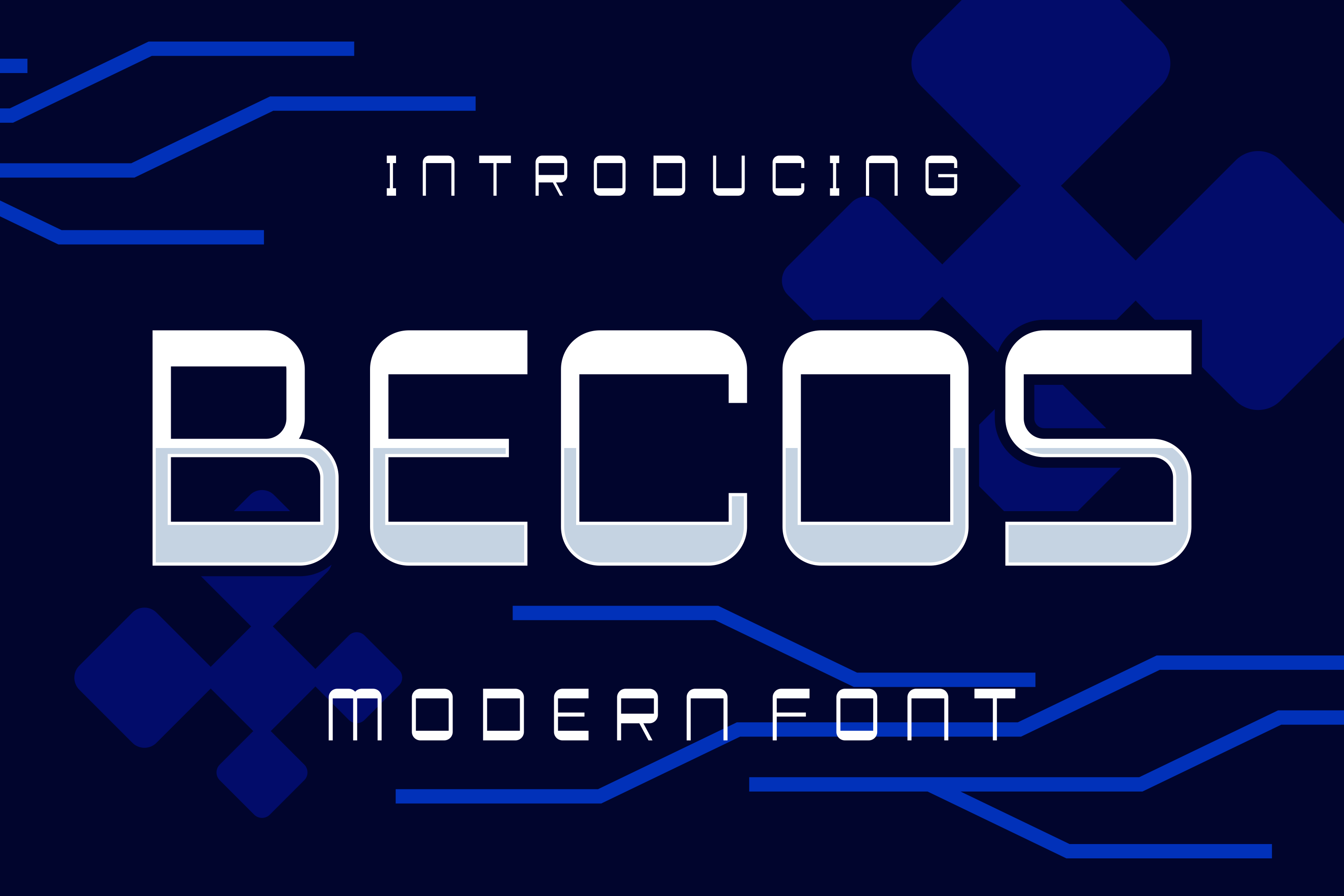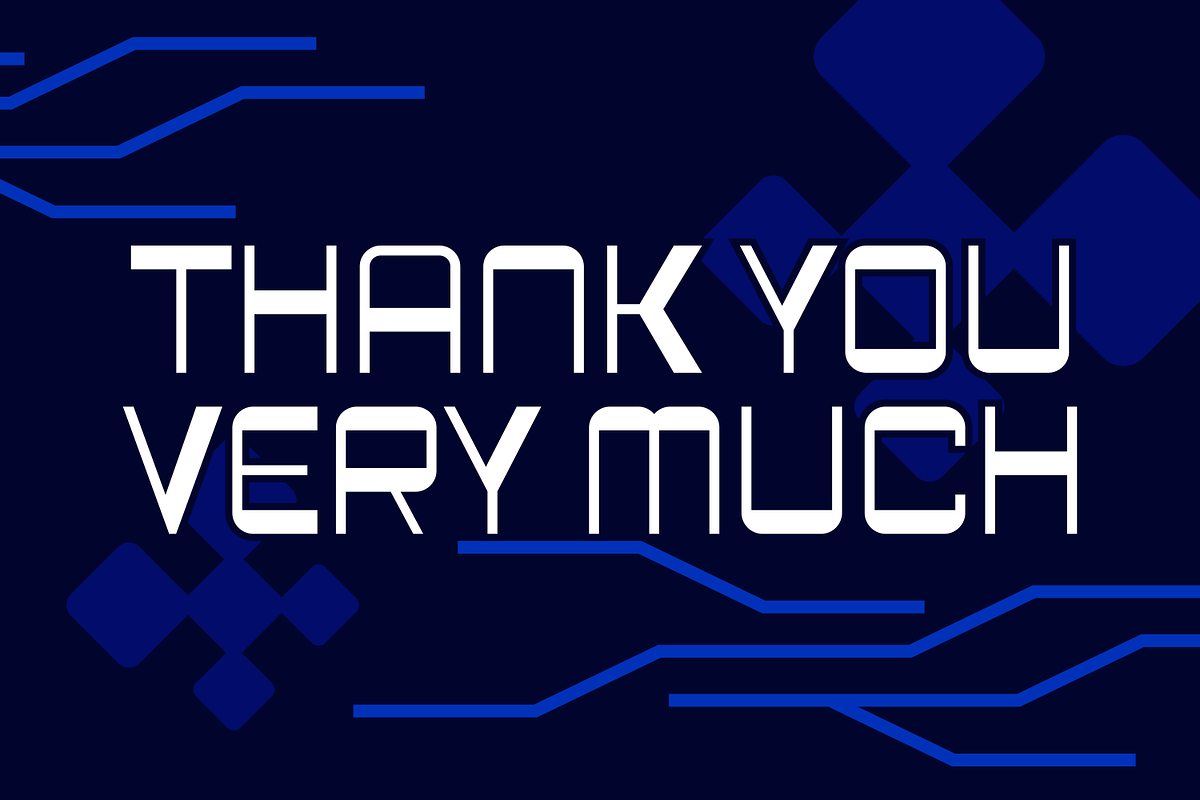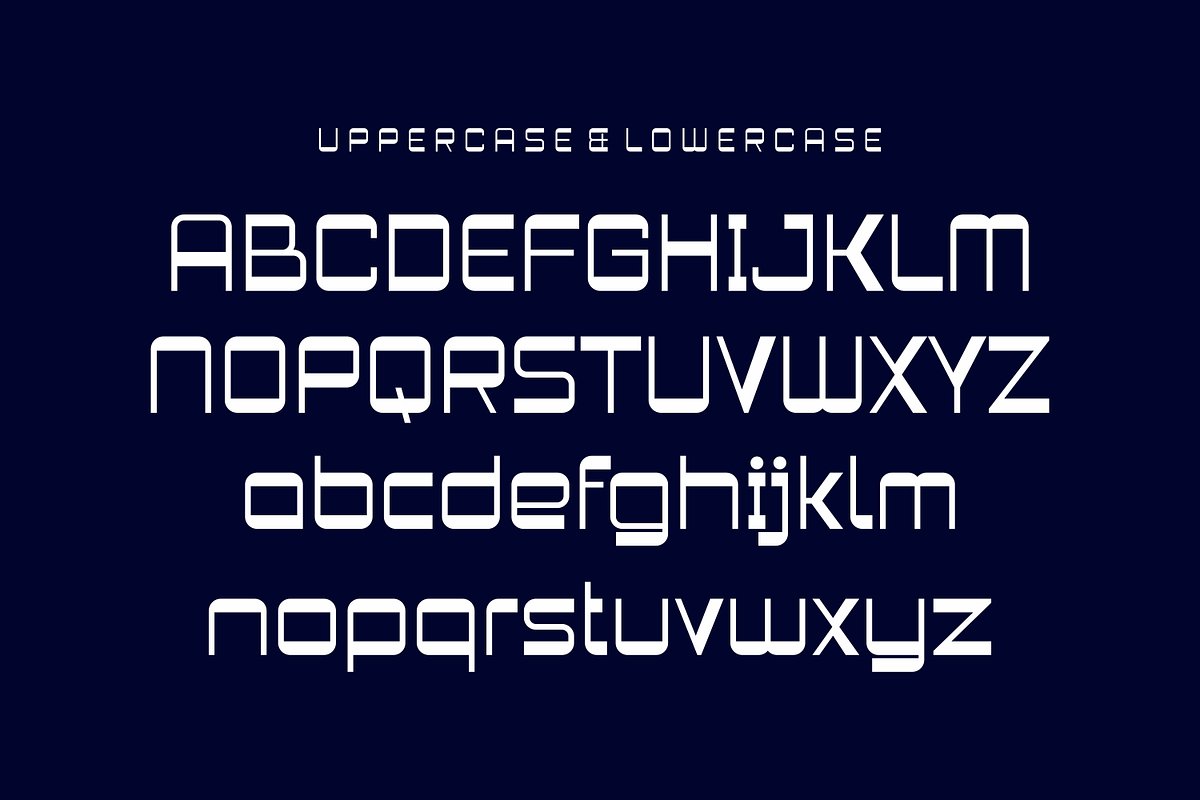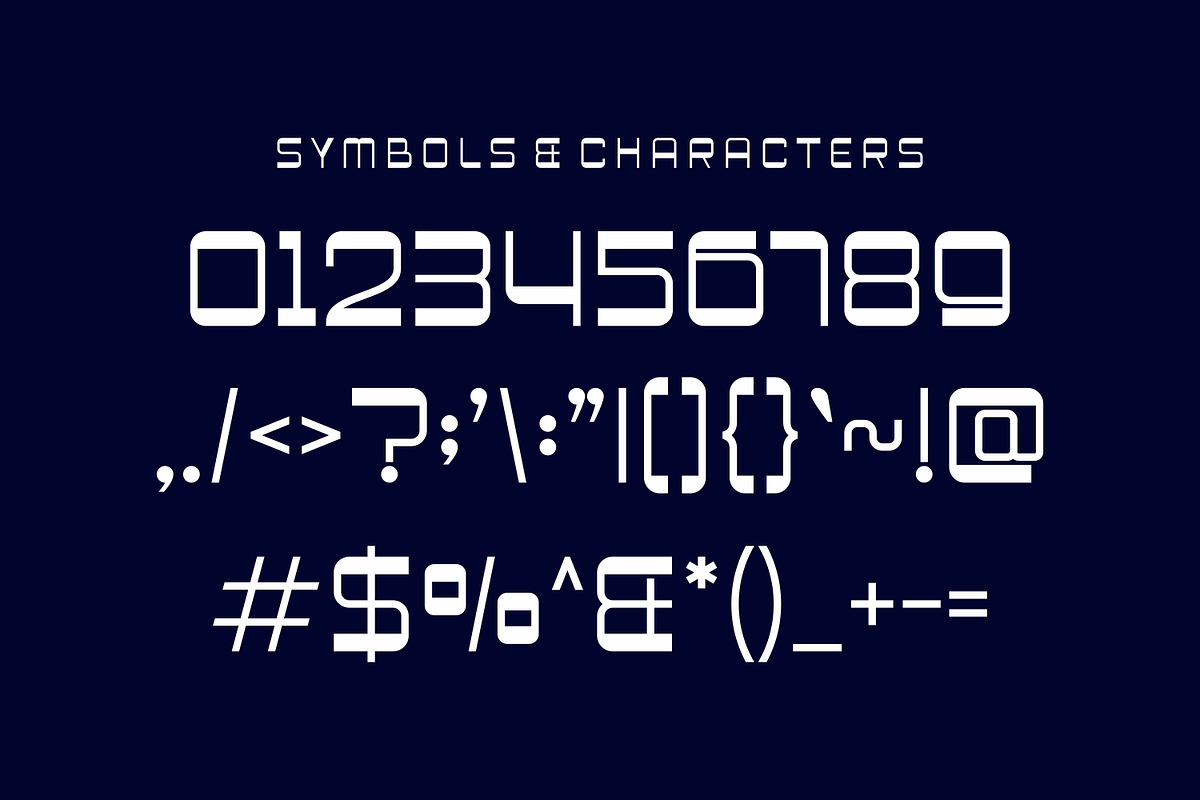
Becos - Technology Font
Becos - Technology Font Perfectly suited on print/screen. it’s perfect for Branding, name card, poster, logo, magazine, cover, banner, t-shirt and headers, or even large-scale artwork.